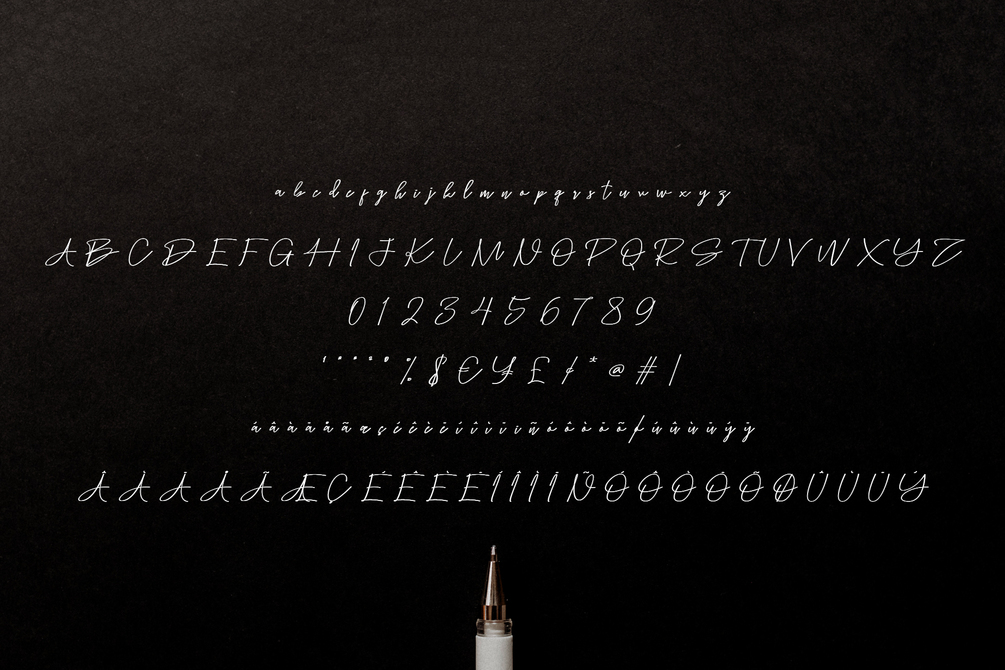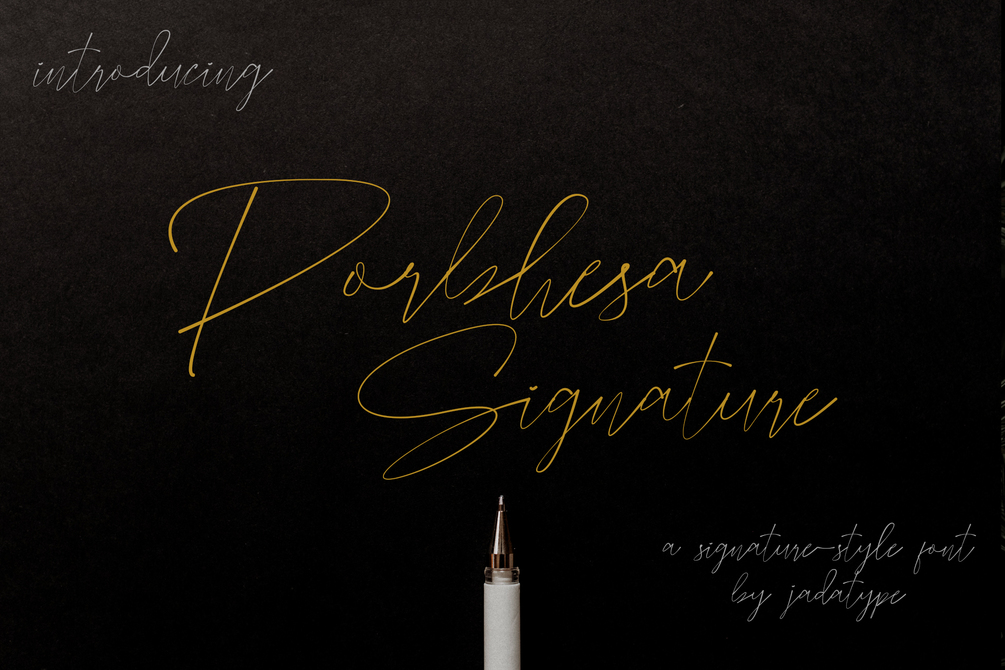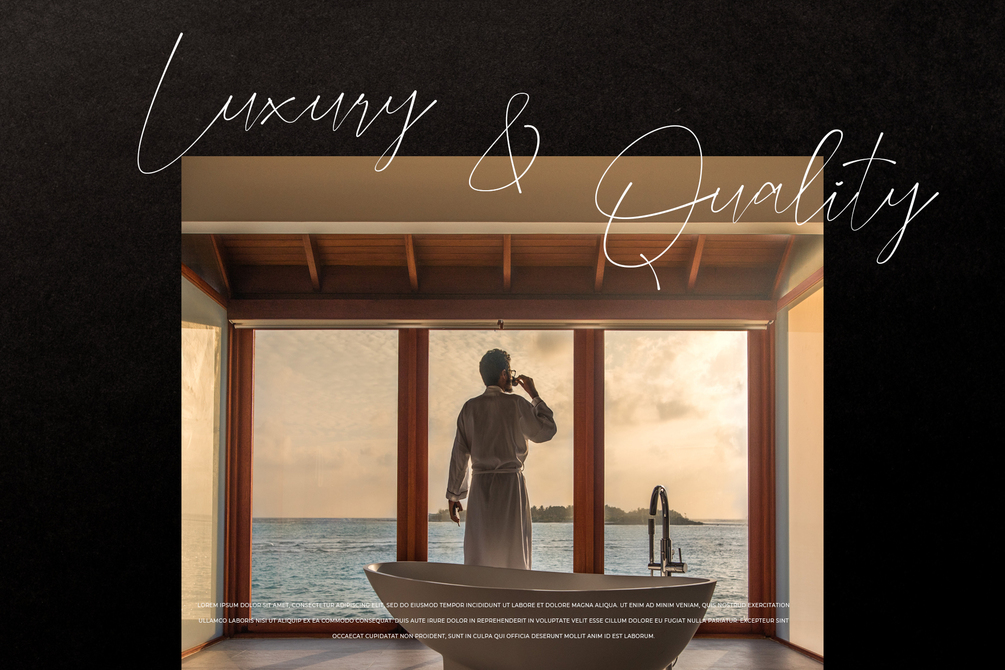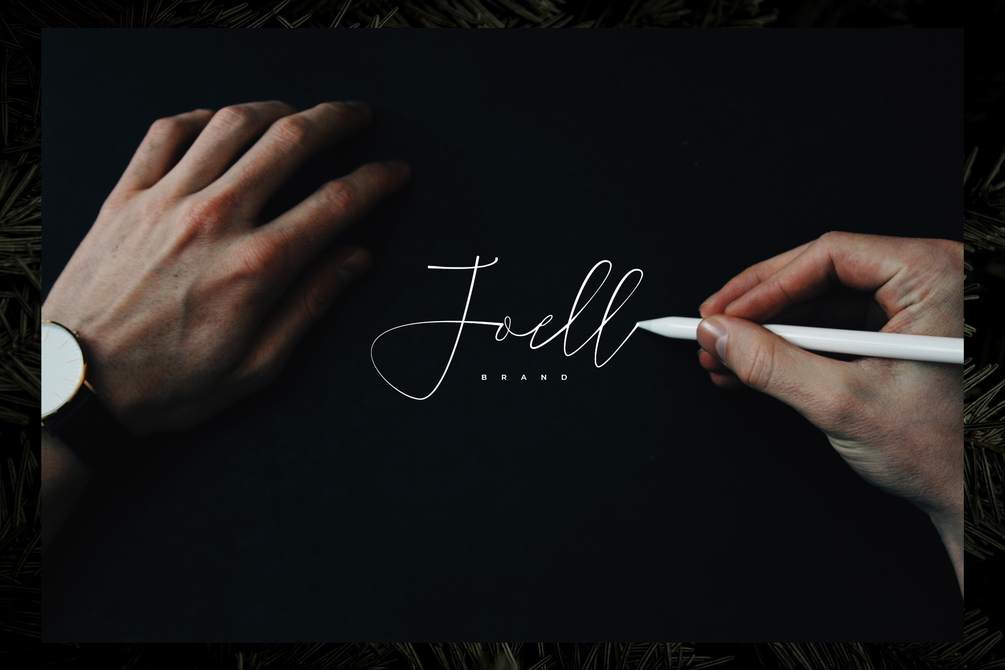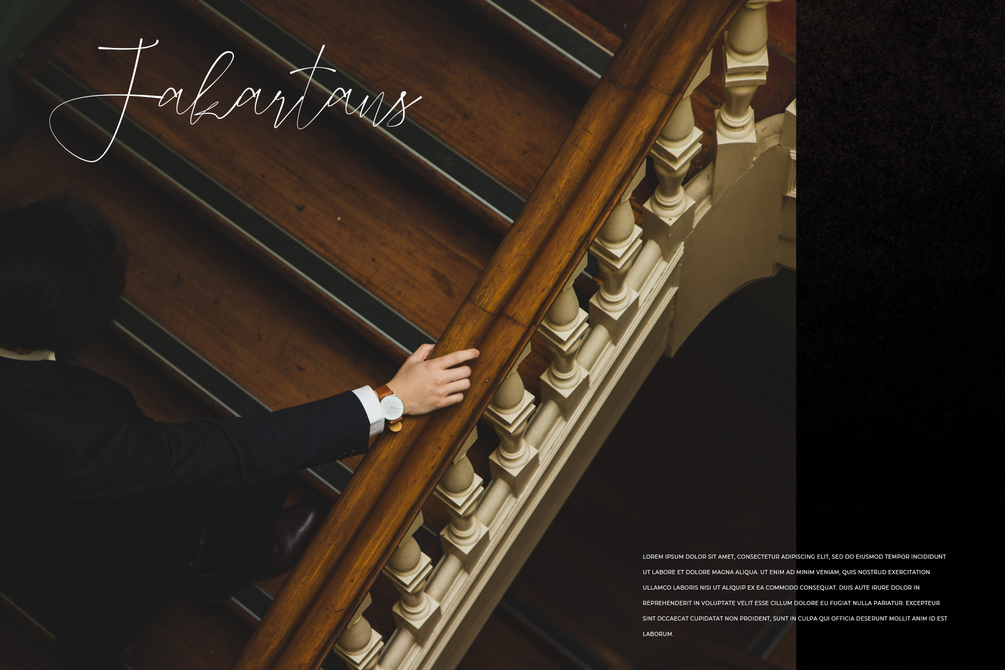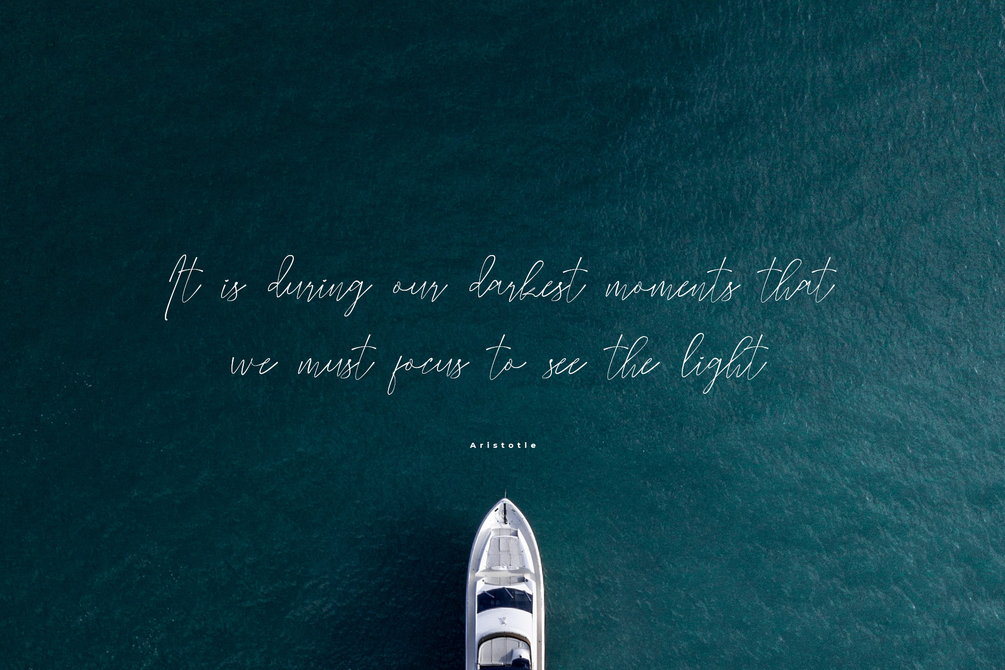
Porbhesa Signature Font
Porbhesa Signature is a font with a classic stylish signature. suitable for photography, social media, music cover, branding, products, handwritten, and so on. contains standard English letters, numbers, punctuation, and several accents that support multilingualism.